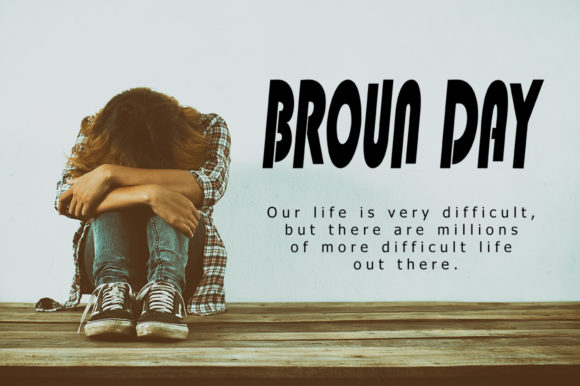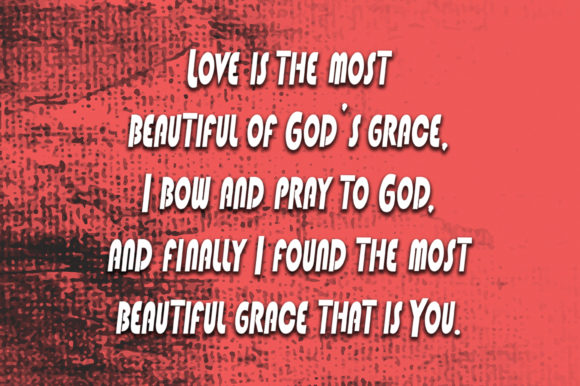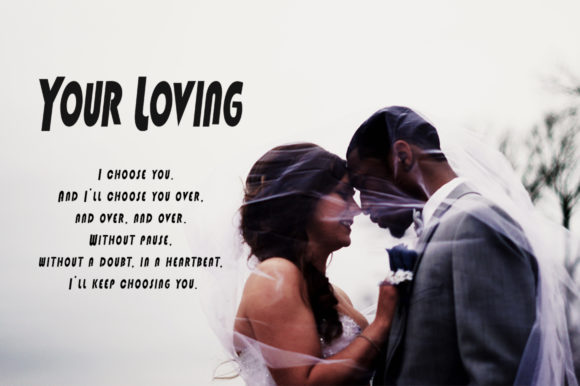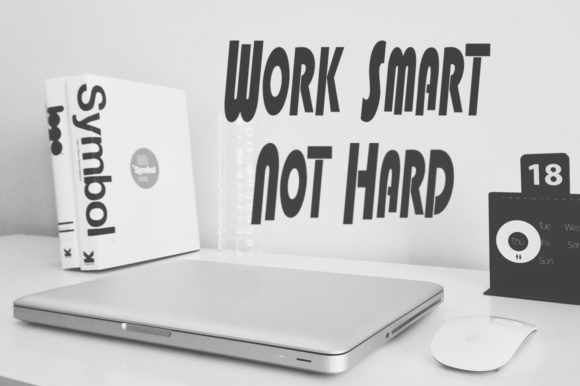
Creating with Purpose: The Birth of Dharma Font
There’s something magical about the moment when a great idea strikes, and the world seems to come alive with possibilities. For designers, this moment often begins with a spark of inspiration – a glimpse of a beautiful hand-lettered phrase, a quirky font, or an intriguing typography style. It was one such moment that led to the creation of Dharma Font, a beautiful and authentic typeface that’s about to change the way you express yourself.
Dharma Font is more than just a font; it’s a statement piece that embodies the spirit of creativity and individuality. With its bold and elegant lines, Dharma Font is perfect for designers looking to add a personal touch to their work. Whether you’re crafting a brand identity, designing a logo, or creating a marketing campaign, Dharma Font is an invaluable asset that will help you stand out from the crowd.
Dharma Font Key Features
- Font Family: Dharma is a sans-serif font family designed to be highly legible and versatile.
- Character Count: Dharma includes over 1,200 glyphs, covering multiple languages and scripts.
- Unique Characteristics: Dharma features a unique blend of geometric and organic elements, resulting in a clean, modern aesthetic.
Dharma Font Review
Overall, I think Dharma Font is a unique and interesting font, but it’s not without its flaws. ✨ One of the things that works well is its ability to evoke a sense of spirituality and mindfulness. The font’s flowing lines and organic shapes make it perfect for use in wellness-related branding or packaging.
Another thing that stands out about Dharma Font is its versatility. It can be used in a variety of contexts, from digital displays to print materials, and still look great. The font’s range of weights and styles also makes it easy to customize to suit different design needs.
- Unique and evocative design ✨
- Perfect for wellness-related branding or packaging ✨
- Highly versatile and customizable ✨
- May be too ornate for some design applications ⚠️
- Can be difficult to read at small sizes ⚠️
- Lack of clear guidelines for usage ⚠️
In conclusion, while Dharma Font is not perfect, it’s a great option for designers looking to add a touch of spirituality and mindfulness to their work. Just be sure to use it thoughtfully and with consideration for the design context.
1. Use Dharma Font for headings and titles to add a touch of elegance.
2. Experiment with different font sizes and styles to create visual interest.
3. Combine Dharma Font with other fonts to create a unique look.
The Dharma Font is ideal for:
– Wedding invitations and stationery
– Branding and marketing materials
– Creative projects and art